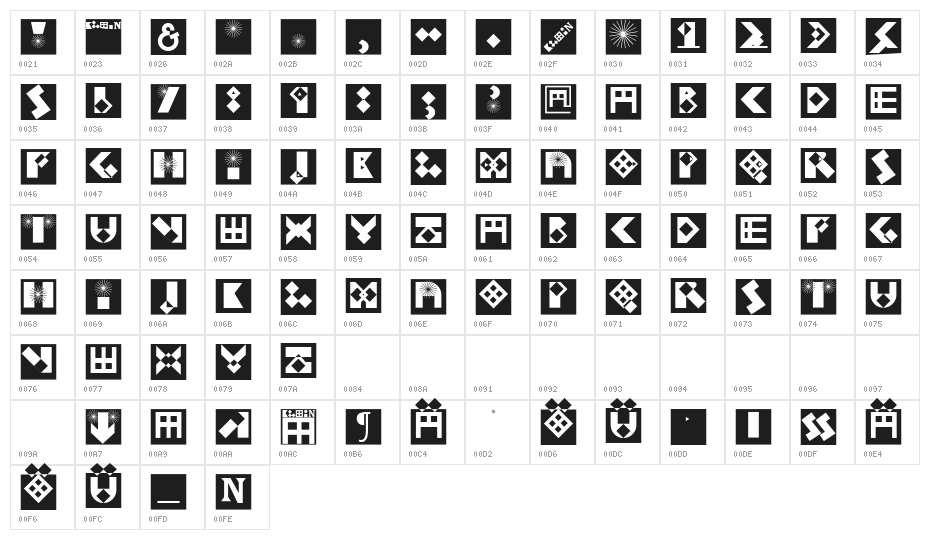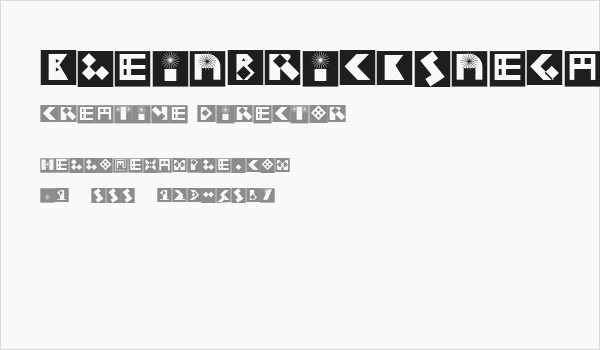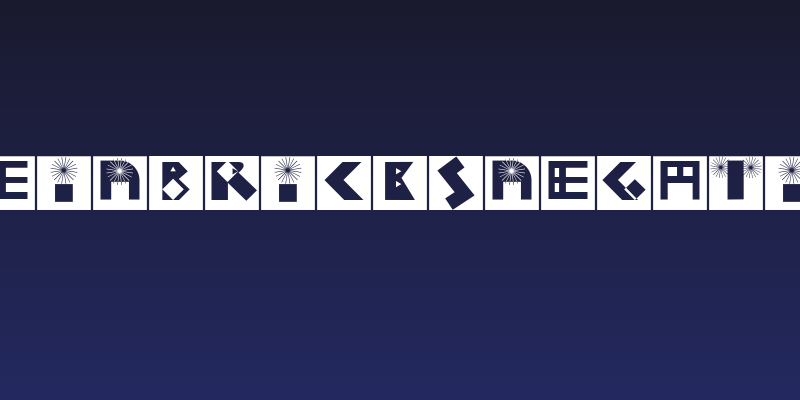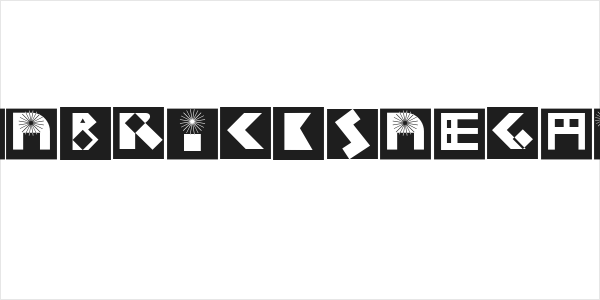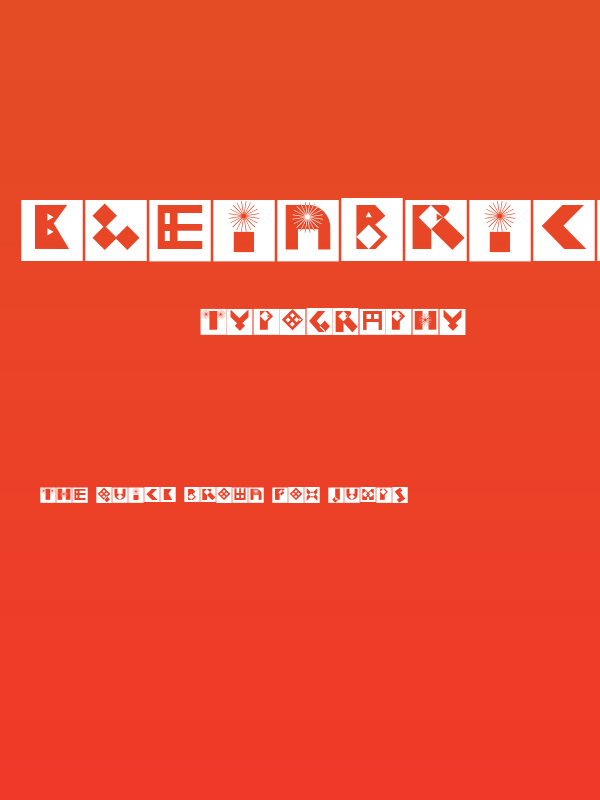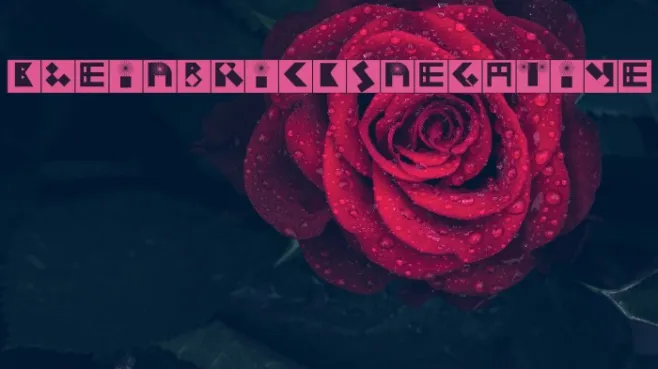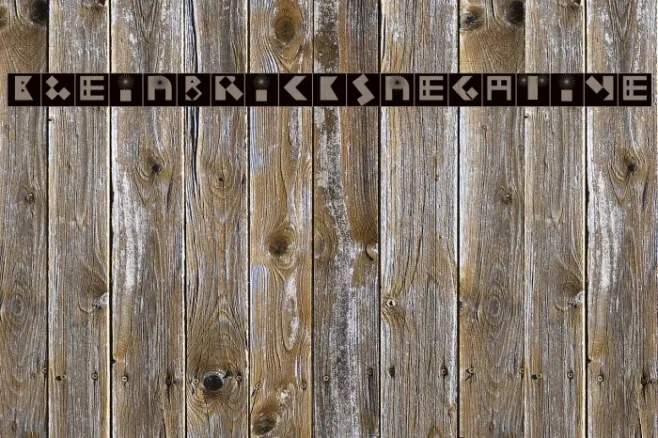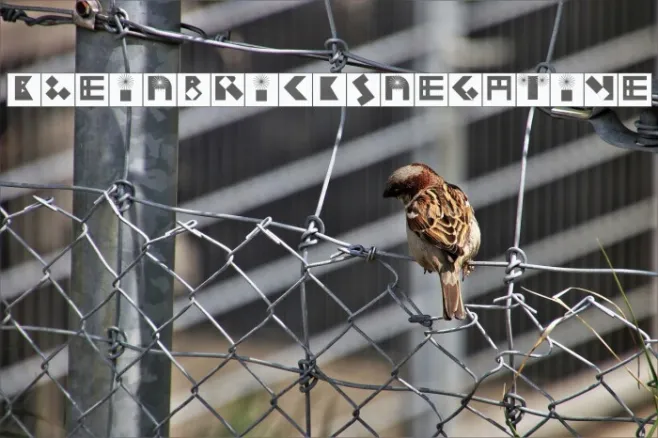
KleinBricksNegative Font
KleinBricksNegative Description
This font features a highly decorative and geometric design, with each character enclosed in a square. The letters and numbers are composed of bold, angular shapes, often incorporating unique patterns and cutouts that create a striking visual effect. The style is reminiscent of modern art or abstract design, with a playful yet structured appearance. The use of negative space is prominent, adding to the font's distinctiveness. This font is ideal for creative projects that require a bold statement, such as posters, album covers, or branding for artistic ventures.